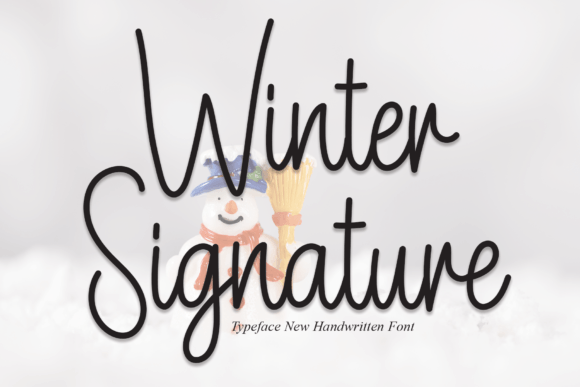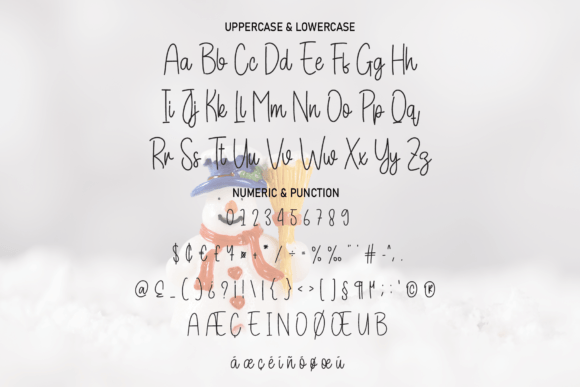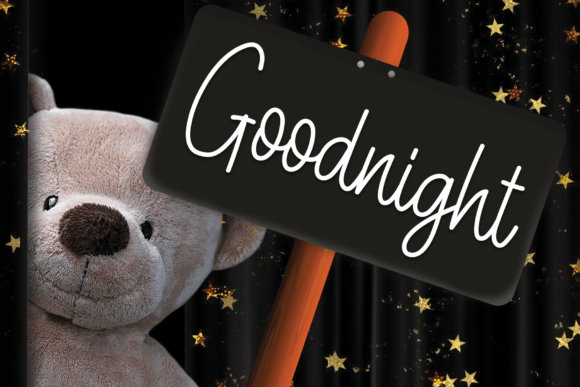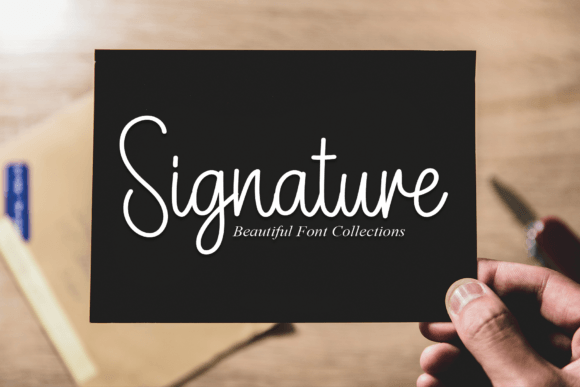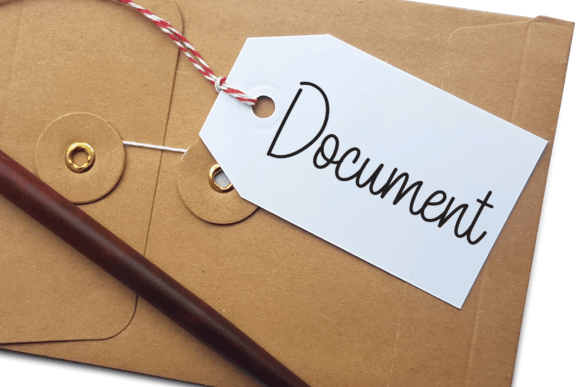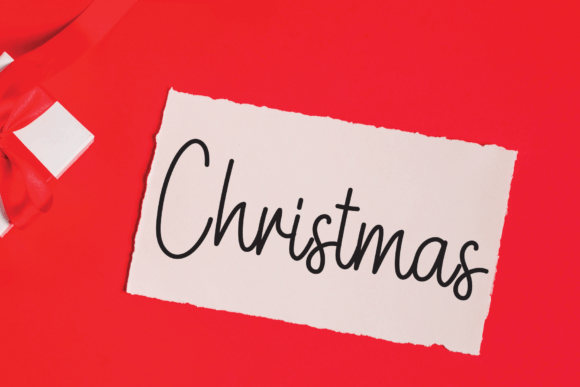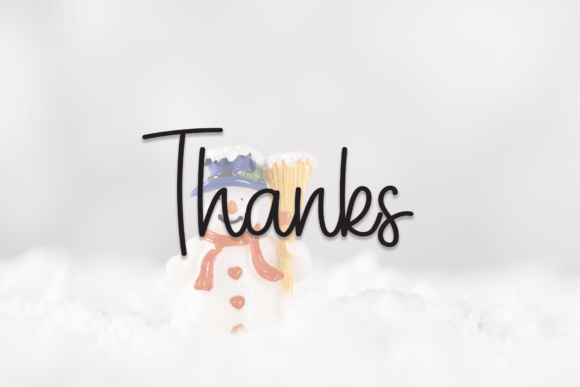
Winter Signature Font
About Winter Signature Font
Winter Signature is a thin-lettered handwritten font masterfully crafted to become a true favorite. Contemporary and fresh, it is perfect for any design you wish to create. Add it to your creative projects and make them outstanding!